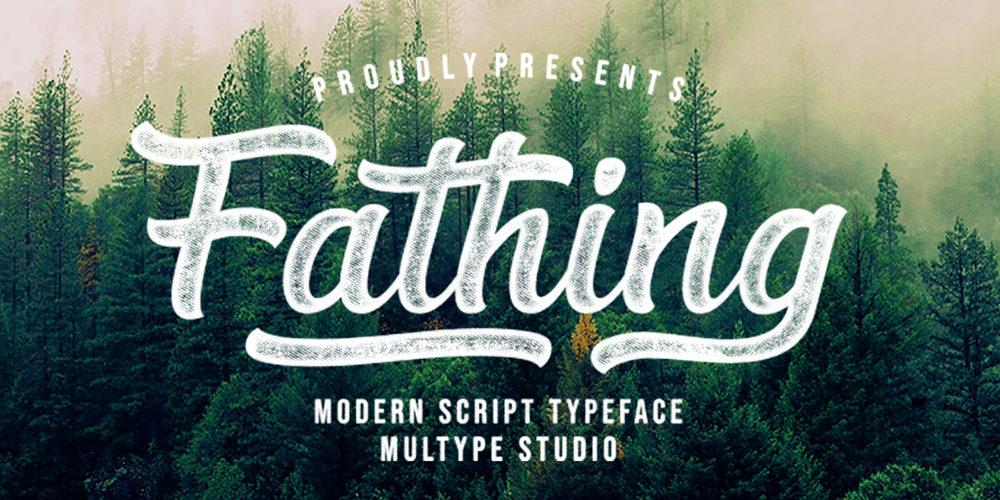
Fathing
Fathing font
Fathing Font Family was designed by Mulia Yanto and published by Multype Studio. Fathing contains 1 styles and family package options. Introducing, Fathing Script. This is a modern script font. It maintains its classy calligraphic influences while feeling contemporary and fresh.Fathing is perfect to use in logotype / wordmark, badge, sign board, poster, headline text, apparel, wedding invitation, etc. This font has many opentype features like ligature, stylistic alternate, contextual alternate, swash, etc and support multi language